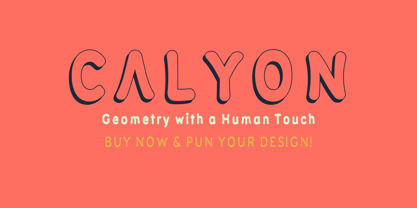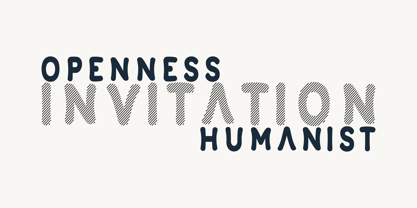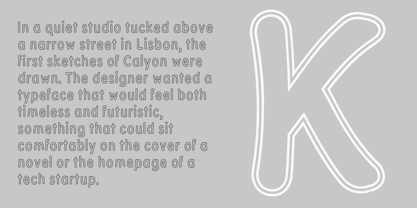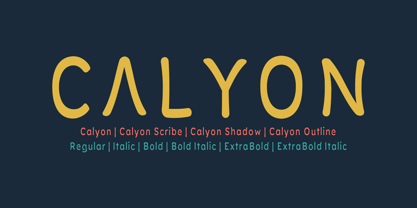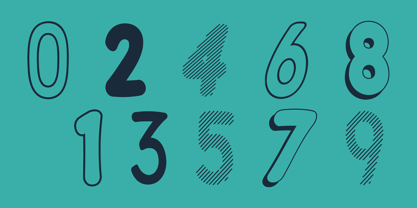
Calyon
by Kufic Studio
The Calyon Font Family was designed by Ahsan Ahmedzai and published by Kufic Studio. Calyon contains 24 styles and family package options.
Calyon is a playful, handcrafted typeface that brings personality and charm to every word. Designed with the spirit of handwriting, its organic shapes and subtle quirks create a warm, human touch that feels approachable and lively. Perfect for branding, packaging, invitations, or social media graphics, Calyon balances casual fun with professional polish. Whether you’re crafting a witty headline, a heartfelt message, or a creative design, Calyon adds a spark of individuality that stands out with ease.